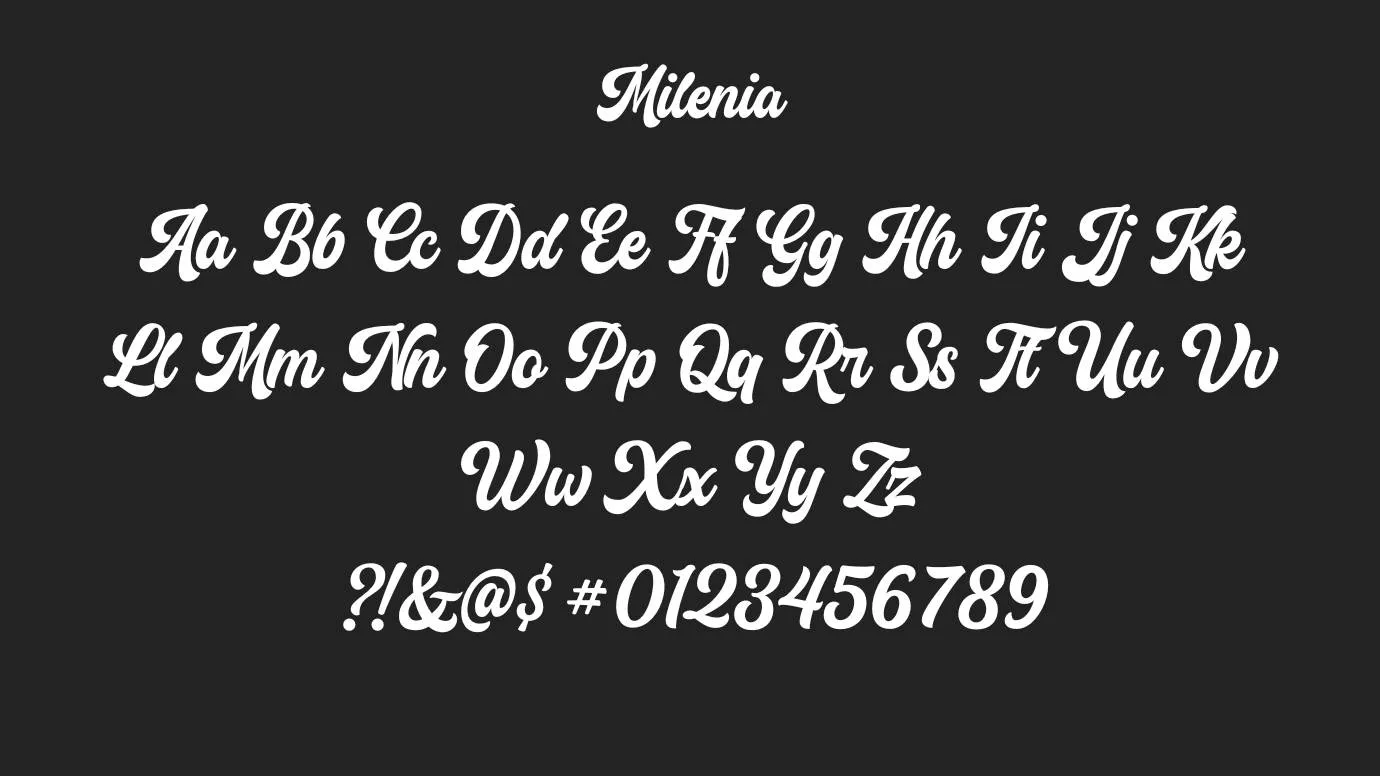
Milenia Font is a lovely and classy script-type font. This calligraphy font was designed by Billy Argel. He is a very famous font designer. You can make so many personal and commercial projects by using this font.
Milenia Font
NameMilenia Font
DesignerBilly Argel